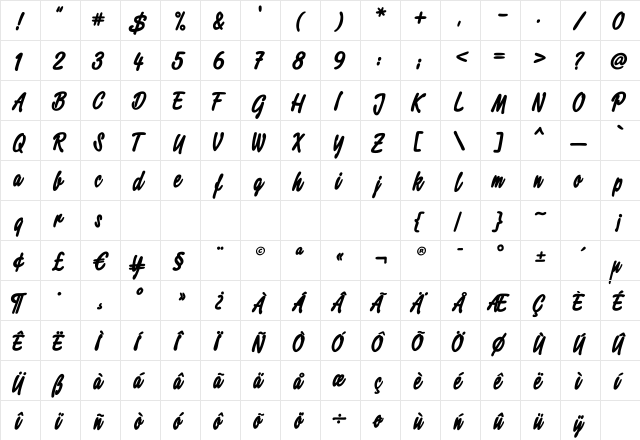
Script2 ExtraBold
Script2 brings a calligraphic fluidity to the page — its connecting strokes and expressive curves give it an unmistakably human quality. The heavy weight commands attention and anchors typographic hierarchies.
Font Pairing: Combine Script2 with a simple geometric sans for maximum contrast — the tension between flowing curves and clean structure is a classic typographic pairing.
Pro Tip: Use Script2 for short runs of text — names, titles, or taglines. Extended body copy in script faces tires the eye quickly.